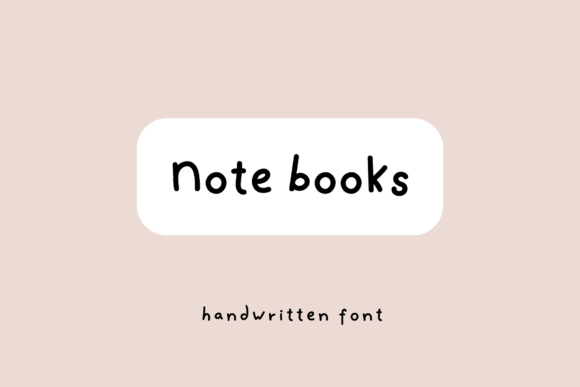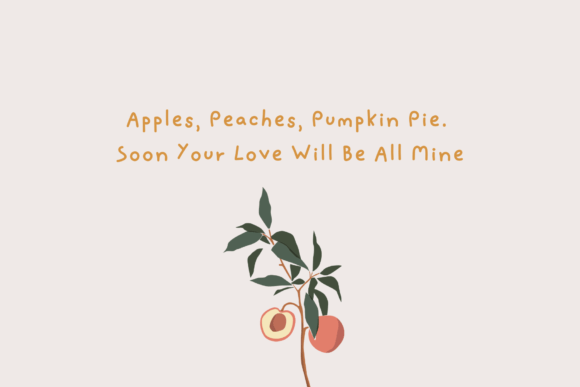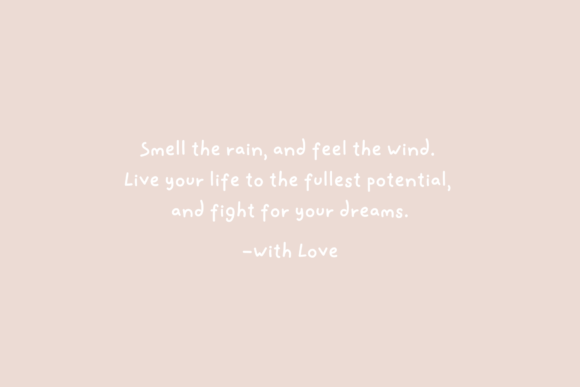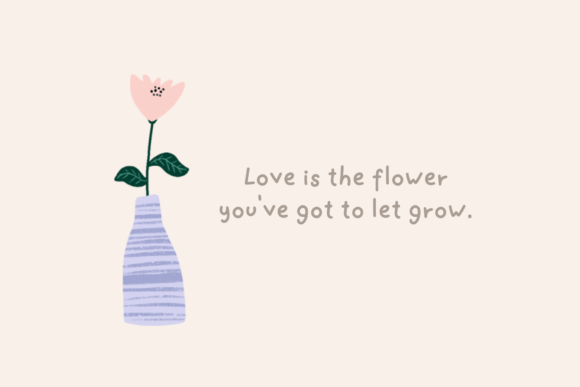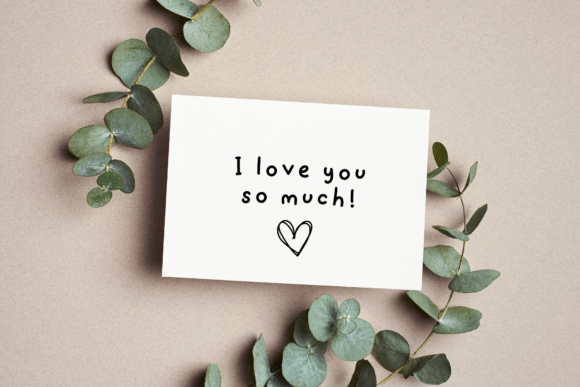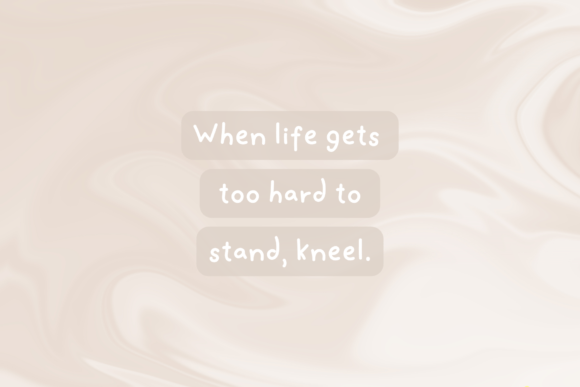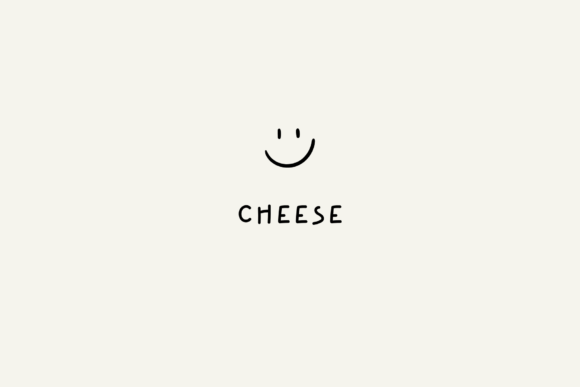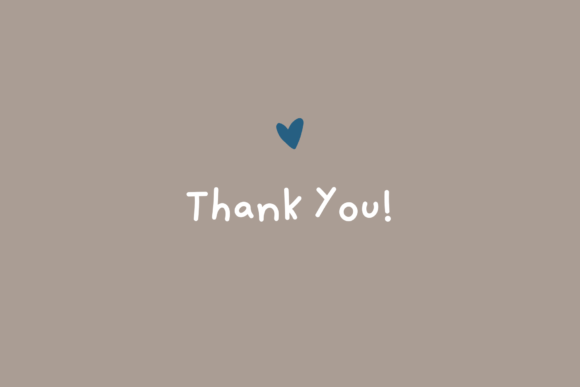
Note Books Font
A Cute and Playful Handwritten Script
Note Books is a charming handwritten font designed to add sweetness and whimsy to your designs. With its smooth curves and playful strokes, this font creates a joyful and friendly vibe. It’s perfect for projects that need a touch of fun and creativity.
Whether you’re working on greeting cards, social media graphics, or branding materials, Note Books brings a delightful energy that will make your designs stand out with personality and warmth.
Note Books is a versatile font that suits a wide range of creative projects. It’s ideal for greeting cards, invitations, and birthday designs. The playful script adds a lighthearted and cheerful touch, perfect for any celebratory occasion.
Use Note Books for logos and branding materials. The cute and approachable style gives your brand a friendly, modern feel while still looking professional.
This font works wonderfully for social media graphics, blog headers, and Pinterest pins. Its playful energy grabs attention and makes your content more engaging.
Note Books is also perfect for product packaging, labels, and merchandise. The friendly design makes your products feel more approachable and fun, attracting customers with its charm.
Clear, Fun, and Easy to Read
Despite its whimsical design, Note Books remains legible at any size. The balanced spacing between the letters ensures that your text stays neat and readable, whether you’re using it for large headlines or smaller captions.
Many designers pair Note Books with a clean, simple sans-serif font for contrast. Use Note Books for titles and the sans-serif for body text. This creates visual interest and helps keep your design organized and easy to read.
To highlight Note Books’ playful style, use bright backgrounds and cheerful colors. Shades like pastel pink, mint green, and soft yellow allow the friendly curves of the font to shine.
When designing greeting cards, invitations, or social media posts, consider adding light illustrations or fun doodles that match the whimsical feel of the font. For marketing materials, keep the layout simple and let the font remain the focus of the design.
Think about the mood you want to create. Note Books is perfect for designs that should feel playful, joyful, and full of life.
Note Books is more than just a cute handwritten font. It’s a creative tool that transforms your designs with its cheerful and engaging energy. Its playful strokes and charming style bring warmth and personality to every project.
Adding Note Books to your font collection gives you a versatile and reliable font for all kinds of creative work. From branding and invitations to social media and product packaging, this font adapts effortlessly to your ideas.